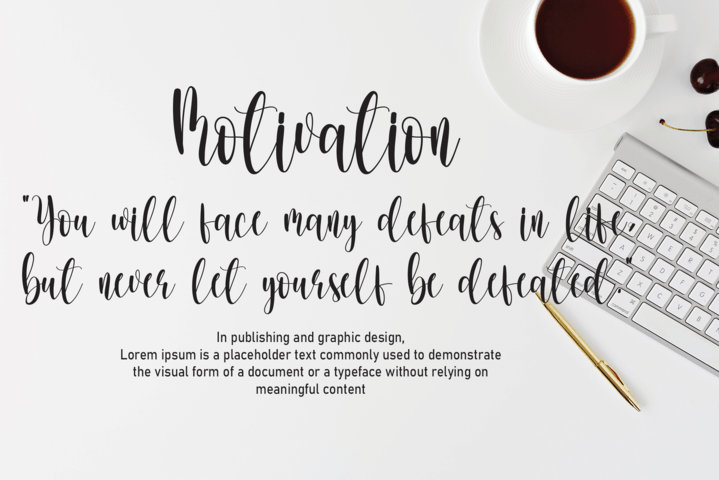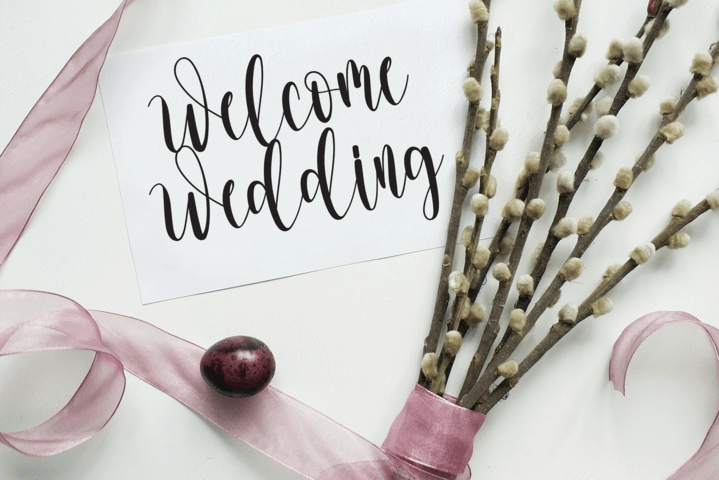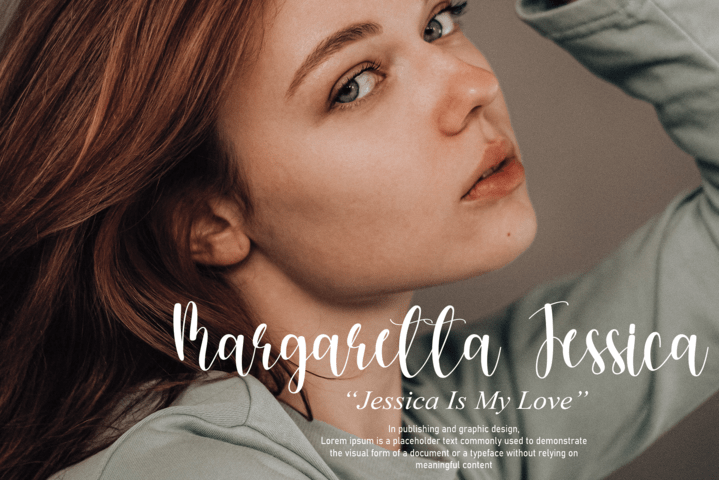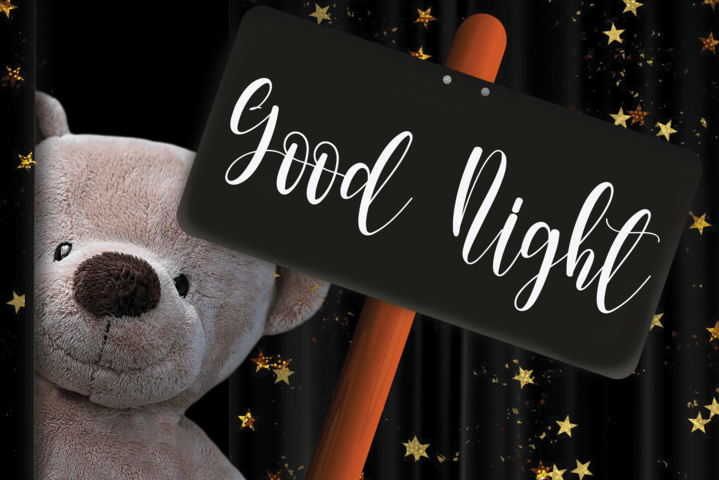
Morningtime Font
Morningtime Script Font
It’s a creative handwriting and unique font. It is suitable for various products such as invitations, product packaging, quotes, product design, crafter, labels, photography, watermarks, logos & branding.